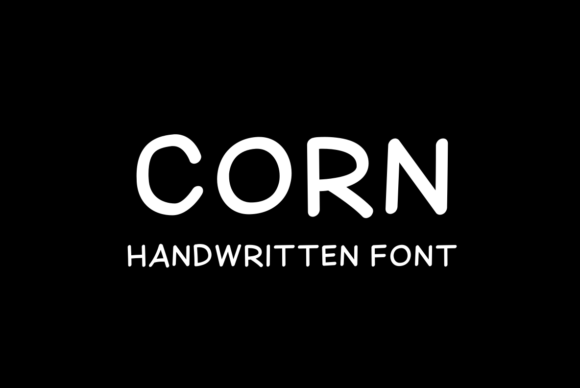
Corn Font: Bringing a Touch of Casual Elegance to Your Designs
Have you ever found yourself scribbling down notes in a coffee shop, trying to capture the essence of a brilliant idea? That’s exactly what happens when creativity strikes, and the world around us becomes a canvas of endless possibilities. In those moments, a font that embodies the carefree spirit of a handwritten note can be just what you need to bring your vision to life.
Enter Corn Font, a charming handwritten typeface that’s designed to add a touch of casual elegance to your designs. With two styles to choose from – regular and bold – Corn Font is perfect for creating a laid-back, friendly atmosphere in your projects. Whether you’re working on a website, a brochure, or a social media campaign, Corn Font’s versatility makes it a valuable addition to any designer’s toolkit.
Corn Font Key Features
- Unique Characteristics: Corn Font features a unique, hand-drawn style with a mix of smooth and rough textures, giving it a distinctive look.
Corn Font Review
I recently had the chance to work with the Corn Font, and I must say, it’s a bit of a mixed bag. Here’s my honest review.
- Unique aesthetic: The Corn Font has a distinct, playful feel that’s perfect for projects that need a bit of whimsy.
- Good legibility: Despite its quirky design, the font is still easy to read, making it suitable for body text or short headlines.
- Customization options: The font comes with a range of styles and weights, giving designers plenty of flexibility to experiment.
- Not ideal for large blocks of text: While the font is legible, it can start to feel overwhelming when used extensively.
- Limited support for certain languages: Unfortunately, the Corn Font doesn’t support all languages, which can be a problem for global projects.
- Not suitable for formal or professional projects: The font’s playful nature makes it better suited for casual or creative projects.
The Corn Font is a fun, unique font that can add a touch of personality to a project. While it has some limitations, it’s still a great choice for designers looking to add some whimsy to their work. Just be mindful of its limitations, and you’ll be all set!
The Corn Font is a versatile font that can be used in a variety of designs, including:
- Summer-themed designs
- Children’s party invitations
- Outdoor and gardening designs